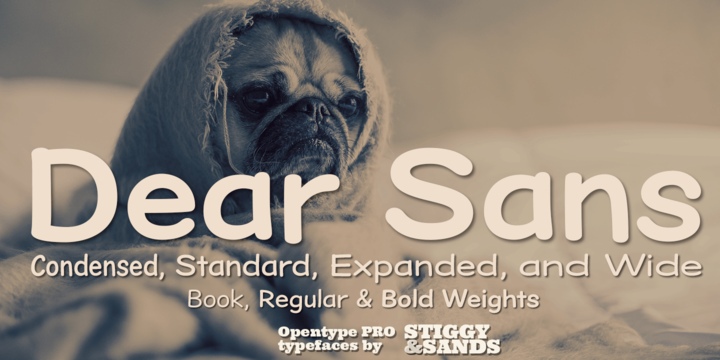
Dear Sans Font
Dear Sans Font is perfect for heartfelt personal branding, intimate letter writing services, warm community organizations, caring healthcare communications, gentle family businesses, compassionate nonprofit materials, friendly neighborhood cafés, thoughtful greeting card designs, nurturing childcare centers, and affectionate lifestyle brands.
Dear Sans Font creates excitement because it embodies the warmth and sincere affection of personal communication with its gentle letterforms and caring character design. The font's soft curves and intimate aesthetic instantly convey genuine care and heartfelt connection, making any brand appear loving and authentically compassionate. Its carefully crafted tender details and affectionate character create an immediate sense of personal warmth that captivates audiences seeking caring experiences, genuine relationships, and products that celebrate the beautiful power of human kindness and heartfelt communication.
The Dear Sans Font family includes multiple weights and styles: Thin, Light, Regular, Medium, Bold, Italic variants for each weight, Condensed, Extended, and Caring versions. Each variant maintains the font's signature affectionate character while offering different levels of emotional warmth and caring styling suitable for various personal and community-focused applications.
This heartwarming typeface brings the authentic spirit of personal care into contemporary design with remarkable tenderness and genuine appeal. Dear Sans Font Free Download provides caring brands and community organizations with access to premium affectionate typography that embodies the essence of heartfelt communication and genuine human connection. The font's loving design and caring authenticity make it ideal for businesses seeking to establish meaningful relationships with audiences who value personal attention, genuine care, and the transformative power of heartfelt communication. Whether you're creating branding for healthcare services, designing materials for family organizations, developing communications for community groups, or producing content for caring service providers, this font delivers the warm atmosphere that resonates with audiences seeking genuine compassion, personal care, and the comforting embrace of authentic human kindness. Its versatile design ensures excellent performance across both intimate printed materials and caring digital communications while maintaining the character of authentic personal typography. The font excels in applications requiring emotional credibility and caring appeal. Healthcare and community professionals appreciate its ability to convey genuine care while remaining highly functional for various compassionate communications and caring promotional materials. The comprehensive character set includes caring symbols and extensive international language support, making it perfect for global caring brands and international community organizations seeking to communicate authentic compassion, personal warmth, and genuine care to diverse worldwide audiences who value human kindness, seek personal connection, and embrace the beautiful power of heartfelt communication that brings people together through shared compassion, understanding, and the universal language of genuine care and affection.